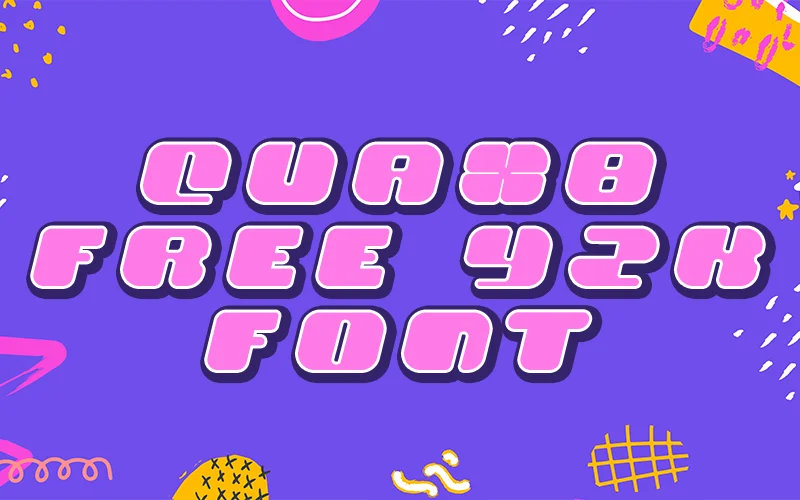
Add bold, retro-futuristic energy to your designs with Quax8. This Y2K-inspired display font blends nostalgic tech vibes with modern, futuristic letterforms — ideal for attention-grabbing headings, posters, digital art and more.
- Distinctive Y2K / retro-futuristic style
- Bold, geometric letterforms designed for display use
- Versatile — works great for branding, headlines, posters, social graphics, and UI mockups